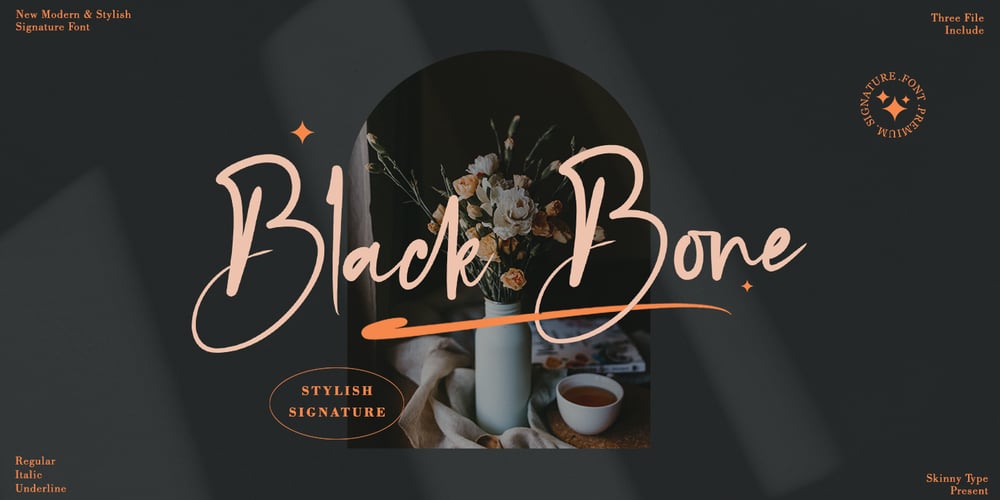
Black Bone Script
Black Bone Script font
Black Bone Script Font Family was designed by Muhajir and published by Skinny Type. Black Bone Script contains 3 styles and family package options. Black Bone Signature font is a classy, stylish, simple and elegant signature font. Specially designed with the concept of script fonts with natural pen strokes. The impression of soft line will be visible. I keep this font looks stylish, elegant, classy, modern, easy to use, and lots of combination options.This font easy to use and friendly for designer and it is PUA encoded which means you can access all of the glyphs and swashes with ease!.Black Bone Signature font is perfect for use as signature, branding, logos, quotes, card, wedding, social media, watermark, name tag, and many other project.Features:-Upper and Lowercase-Numerals & Symbols-Multilingual Support-Ligatures-SwashPlease send a message if you have questions.Thank you !